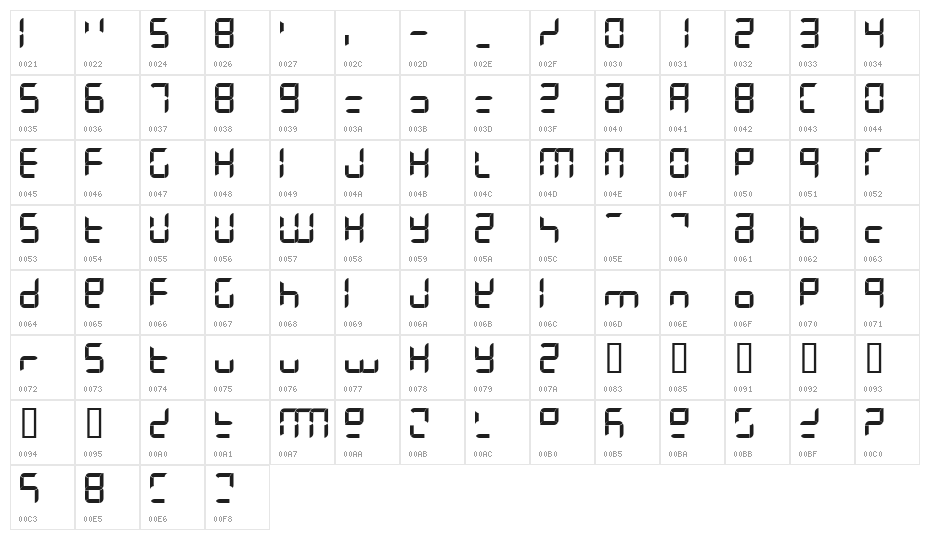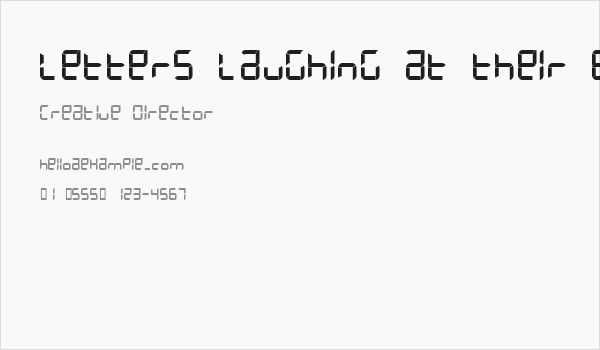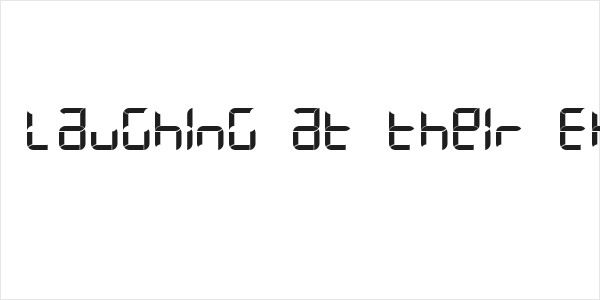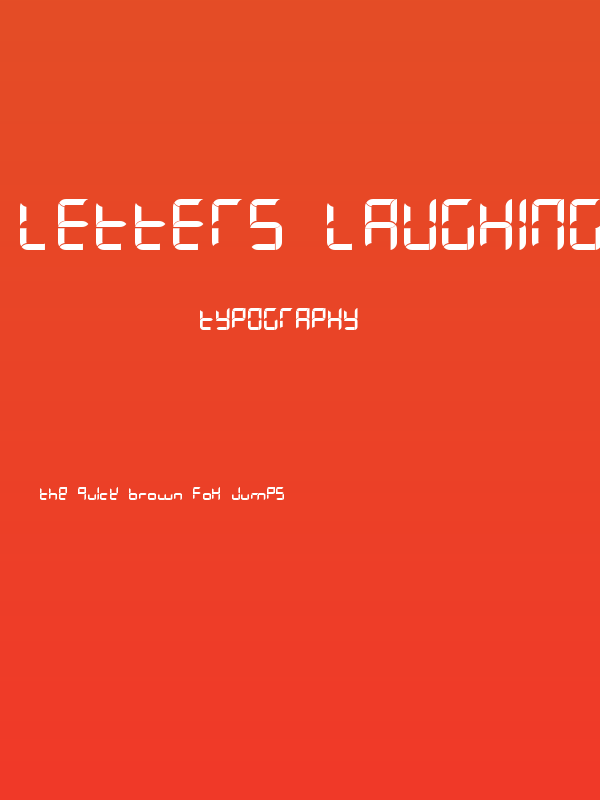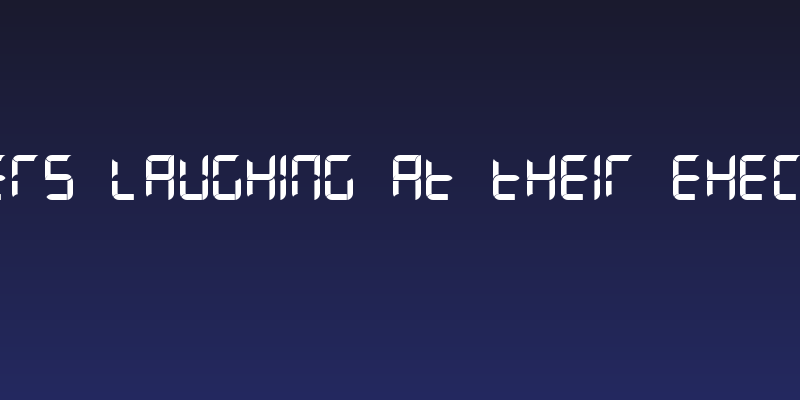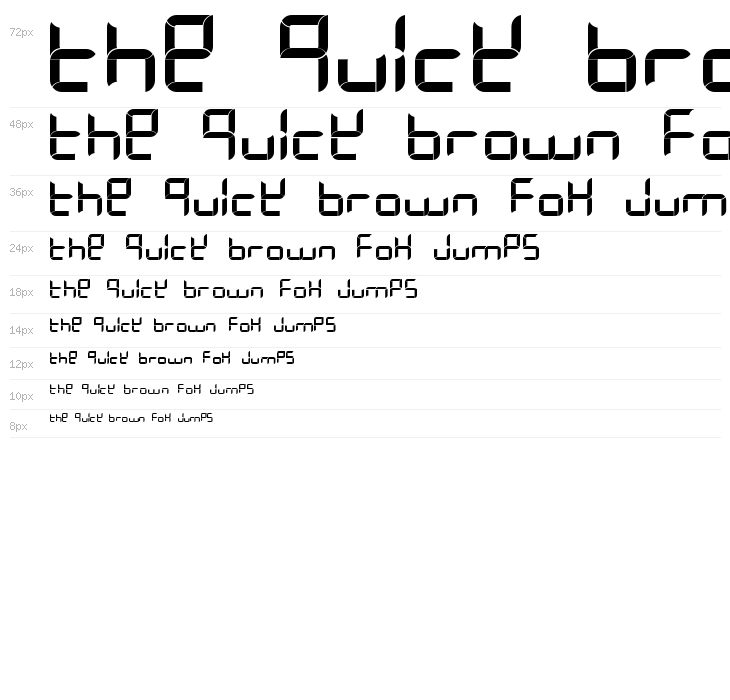
Letters Laughing at their Execution Font
Letters Laughing at their Execution Description
This font features a digital, segmented style reminiscent of LED displays or digital clocks. Each character is composed of distinct segments that form the letters and numbers, giving it a futuristic and technical appearance. The design is clean and geometric, with sharp angles and straight lines dominating the structure. The uniformity in the segment width across all characters provides a cohesive look, while the absence of curves enhances its modern, digital aesthetic. This font is ideal for projects that require a technological or contemporary feel, such as digital interfaces, tech branding, or futuristic designs.
| Proposed Projects | Ideal for digital interfaces, tech branding, futuristic designs, and electronic displays. |